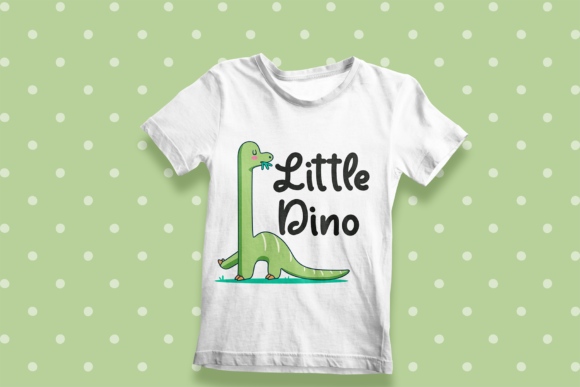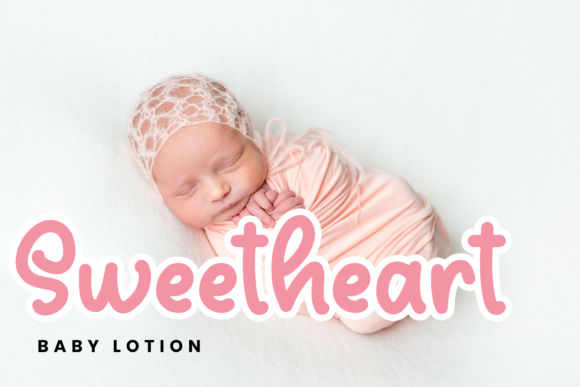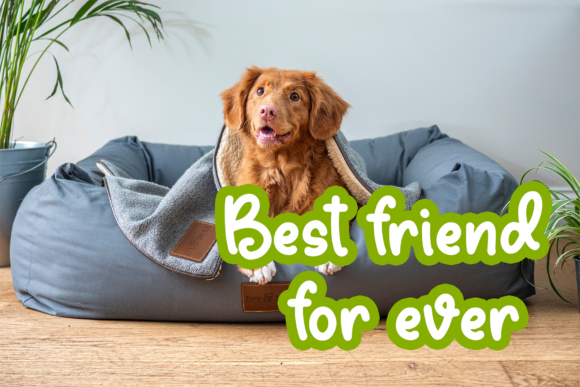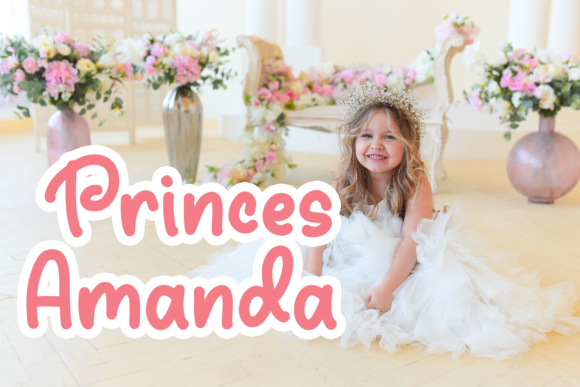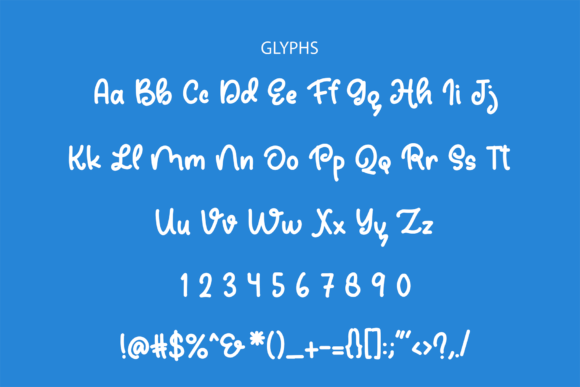
Introduction to Pudel Font
Have you ever stared at a blank page, waiting for inspiration to strike? For designers, this moment is all too familiar. The blank page stares back, a canvas of endless possibilities. But what if you had the perfect design resource to spark your creativity? Enter the Pudel Font, a delightful display font that embodies fun, quirkiness, and authenticity.
With its high-quality design and transparent background, the Pudel Font is a valuable addition to any creative project. Whether you’re working on a branding project, designing a logo, or creating a social media post, this font is sure to bring a touch of whimsy and personality to your work. And the best part? It’s available for free download, making it an accessible design resource for designers of all levels.
Key Features of Pudel Font
- High-quality design with a unique, playful style suitable for creative projects.
- Comes with a transparent background, making it easy to customize and use in various design resources.
- The font size is scalable, allowing designers to use it in a range of applications, from small text to large headlines.
- Features a high resolution, making it ideal for use in print and digital design projects.
- Part of a larger collection of fonts, offering designers a wide range of options for their creative projects.
Honest Review: Pudel Font
I recently came across the Pudel Font, and I must say it’s a great addition to any designer’s toolkit. With a high quality design, this font is perfect for creative projects that require a unique touch.
One of the standout features of the Pudel Font is its transparent background, which makes it easy to use in a variety of design situations. It’s a versatile design resource that can be used in a range of creative projects, from logos to typography.
- Unique and creative design
- High quality and detailed typography
- Only available in a single weight, which may limit its use in certain projects
Overall, I’m impressed with the Pudel Font and would recommend it to designers looking for a unique and high quality design resource. It’s a great option for free download and can add a creative touch to any project.
Tips for Getting the Most Out of Pudel Font
For the best results, use the Pudel Font on a transparent background to create a clean and minimalist look. This font is ideal for creative projects, such as logos, branding materials, and social media graphics.
The Pudel Font is a versatile design resource that can be used in a variety of situations, including:
- Branding materials
- Print materials